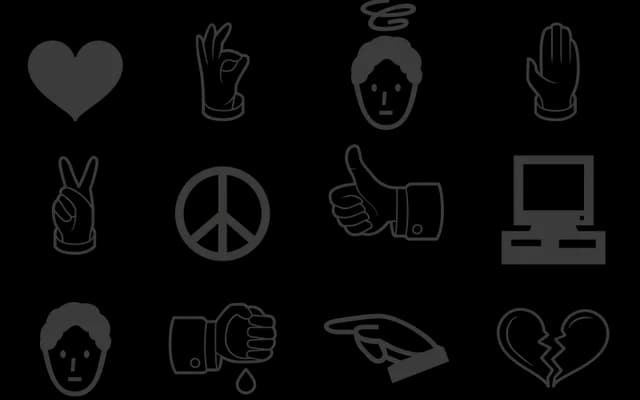
Disclosure Dingbats
A dingbat typeface with 666 characters spanning pointing hands, clocks, vehicles and famous buildings, inspired by Wingdings conspiracy lore.
Two styles, Illustration and Icon, are optimised as companions for display and body text respectively, each drawing from the same set of 666 characters. OpenType ligatures (129 in total) and 3,500 keywords drive the behaviour, causing the symbols to shift as you type and reveal conspiratorial sequences. The concept is rooted in the infamous Wingdings prophecies, reframing that tradition as a playful but carefully constructed system.
A dingbat typeface containing pictorial symbols and illustrations rather than letterforms, offered in illustration and icon styles optimised for display and body text use respectively.